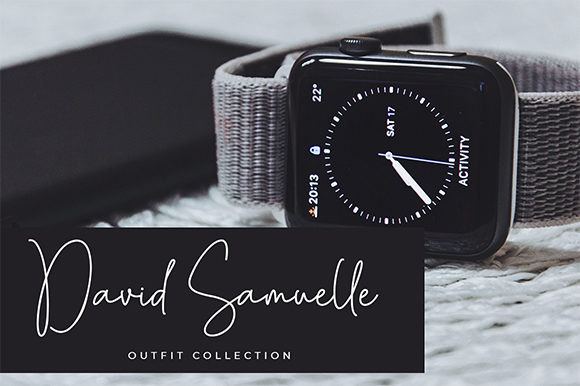
Beauty Andellia Font
db-ku.com - Script & Handwritten -- Beauty Andellia is a stunning signature font. This handwritten font is the perfect font for adding a personal touch to your upcoming projects!